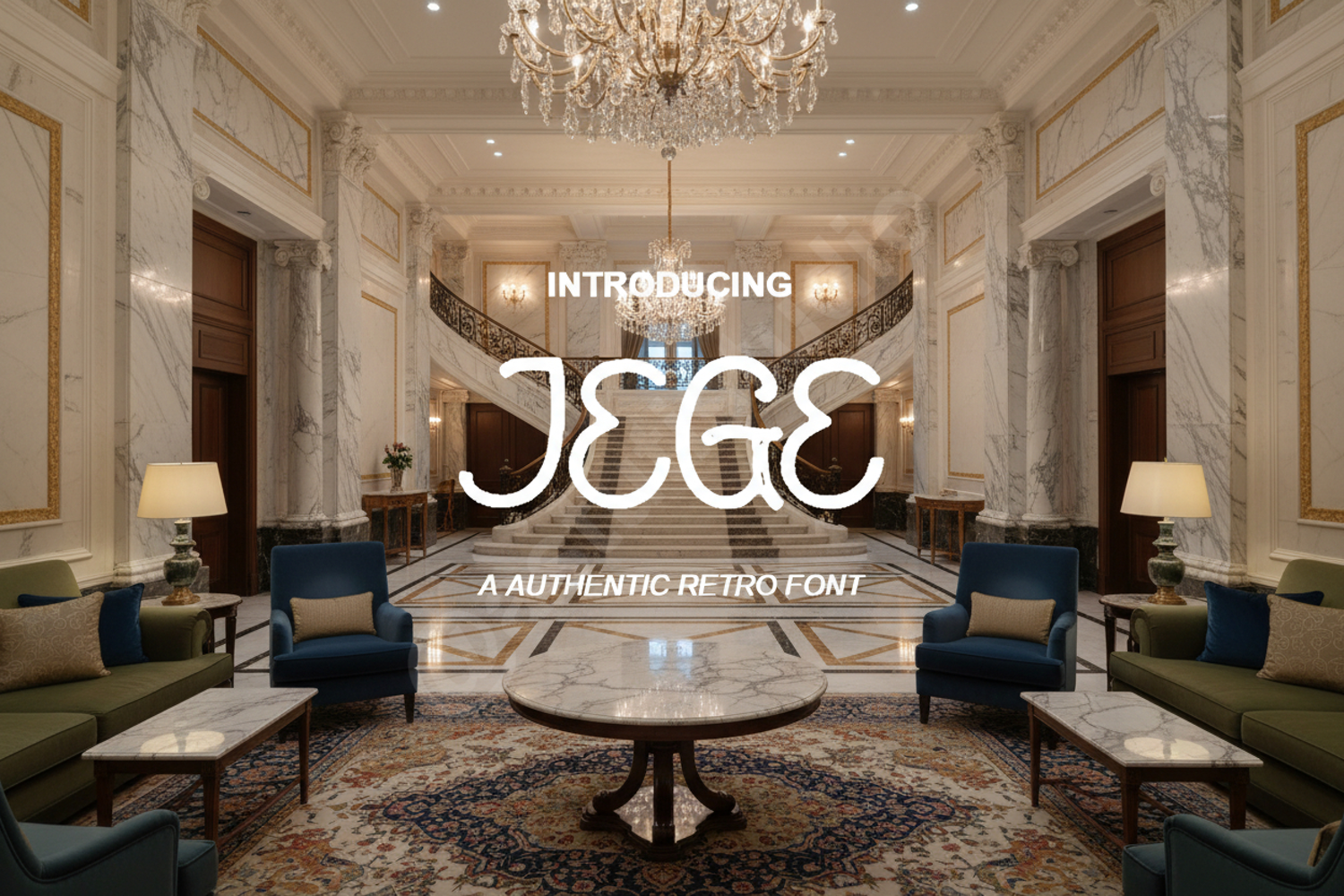
Jege - Modern Minimalist Sans Serif
Jege
Jege is a premium minimalist sans serif font crafted for designers who value clean aesthetics and professional precision. With its balanced proportions and geometric influence, Jege offers a sophisticated look that remains timeless across various platforms. Its versatile nature makes it an essential addition to any high-end design toolkit.
- High-End Branding: Create a lasting impression with a clean and authoritative logo.
- Editorial Layouts: Perfect for body text or headlines in fashion and lifestyle magazines.
- Digital Design: Optimized for readability in website headers and mobile UI.
- Corporate Identity: Elevate business cards, letterheads, and professional presentations.
- Product Packaging: Add a touch of modern sophistication to labels and boxes.